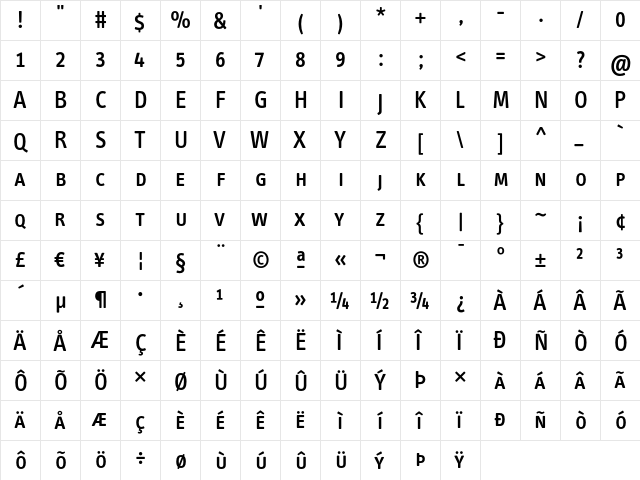
InfoTextMediumTf Caps
Design Context for InfoTextMediumTf Typeface
InfoTextMediumTf offers clean, dependable letterforms without strong stylistic allegiance, making it a practical choice for designers who need flexibility.
Pro Tip: Use InfoTextMediumTf in both headline and body roles to test its range before committing to a single application.